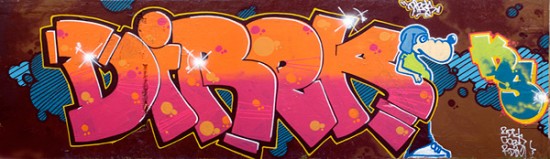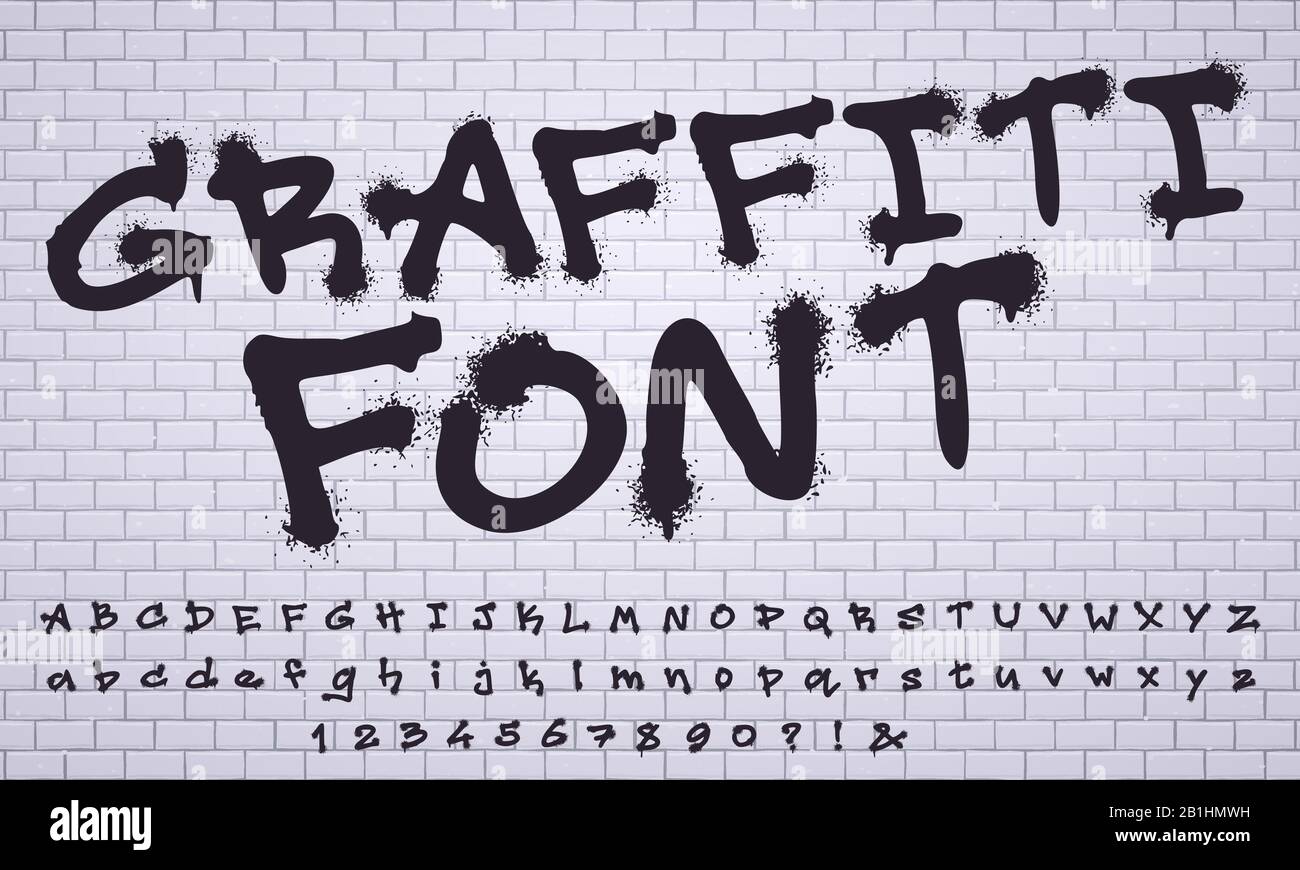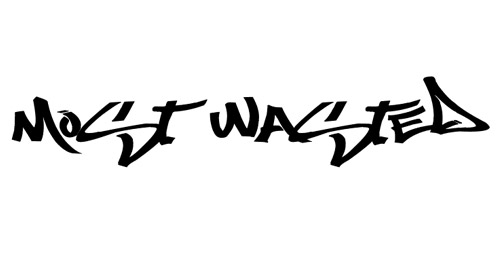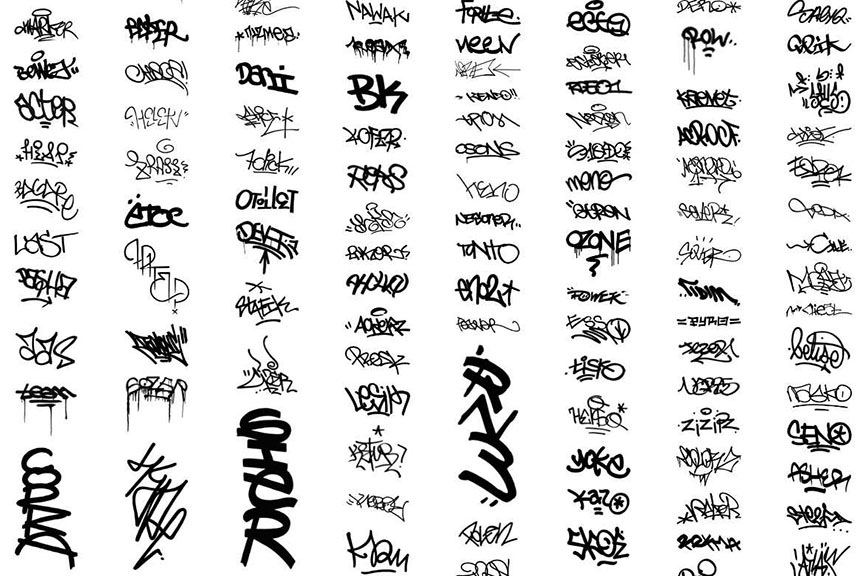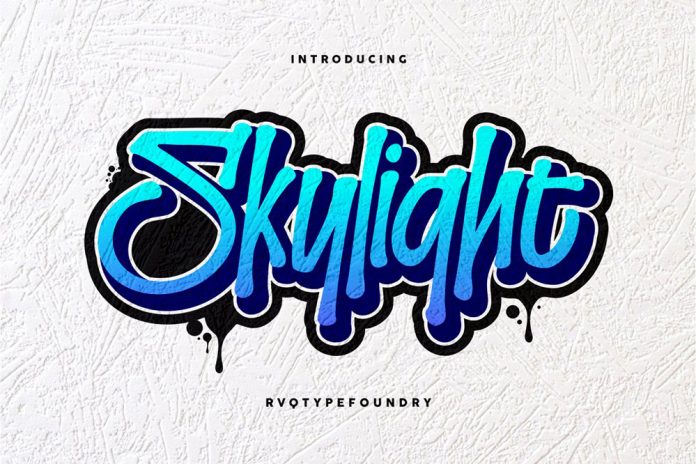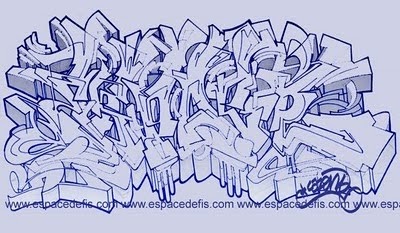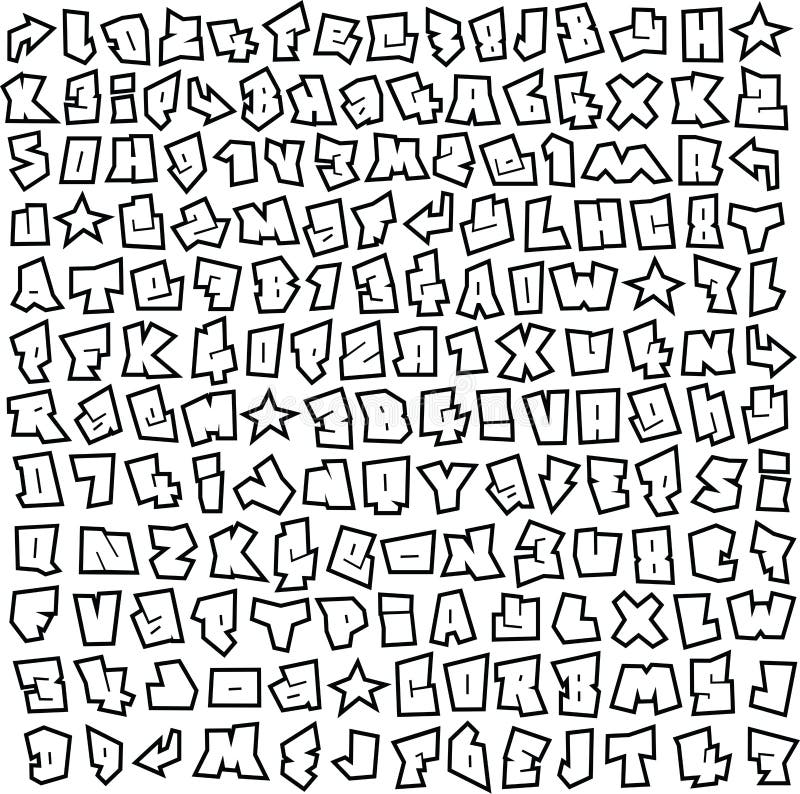
A graffiti style font is essentially a font that can be used to type out tags throws or pieces. However for complicated graffiti styles they can never be achieved by fonts.
A Fat Tip also often called a Fat Cap is any spray can cap actuator that creates a wide circular spray pattern.
Depending on your preferences there are many fonts that can be used for graffiti purposes such as bubble fonts stencil fonts outline fonts etc. We also offer a Font Free every week. Fonts for graffiti murals and drawings.
Graffiti Font Graffiti is an artistic expression that is usually done on public buildings walls or trains. Our marketplace allows artists to register and list their fonts for sale and include them in. Hand lettering is an art form that takes practice and discipline and can mimic calligraphy or other styles.
Since 1999 Weve worked to both design collect the most full featured advanced digital fonts for building wildstyles handstyles throwies blocks more with graffiti letter styles from the old school to the new. Graffiti fonts can be a good way to study graffiti letters or graffiti alphabet but you really should learn to express in your style. The Graffiti Fonts type foundry was created in 1999 to fill the gap in the typographic world created by the absence of modern graffiti lettering handstyles.
Use our graffiti generator to make your name look like it was spray-painted in the city. If the main critera in defining a Graffiti genre within type is intention then the first typeface in this genre has to be Fat Tip. When the foundry released its first commercial collection in 2001 there were less than a dozen fonts in existence that had been designed to purposely emulate identify as modern graffiti.
Considering the evolution of style over the decades distinct regional styles the myriad other factors at work dozens even hundreds of clear classifications exist more classifications of lettering than there currently are fonts to represent. The Graffiti Fonts collection is the first largest collection of authentic graffiti style typefaces ever assembled. When you start modifying the shapes of the letters you are now illustrating hand-drawn lettering.
The Fat Tip font was created in mid 1996 by Turntable Media. Page 1 of 2. Our most daring and original sources for street graffiti or a mural.